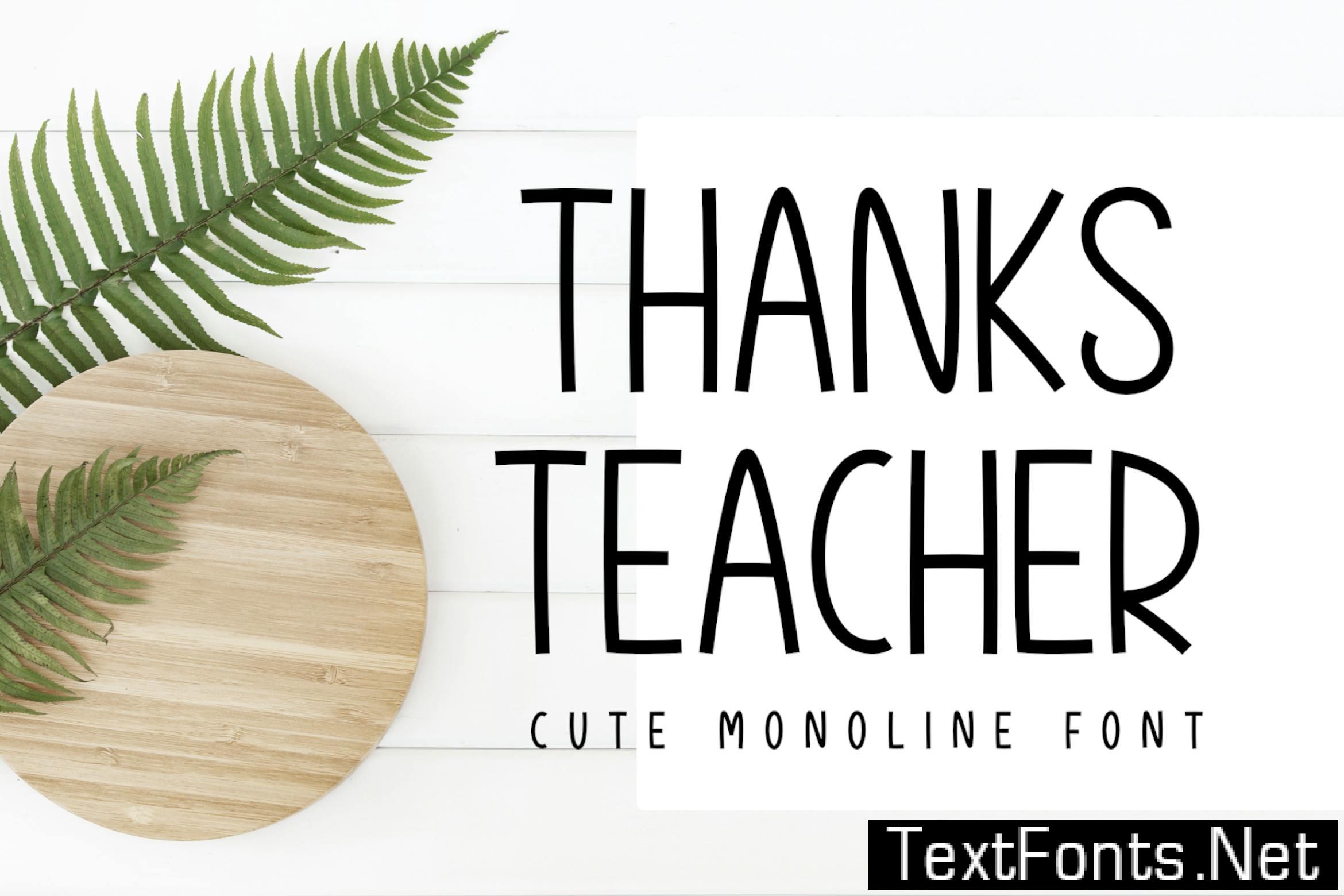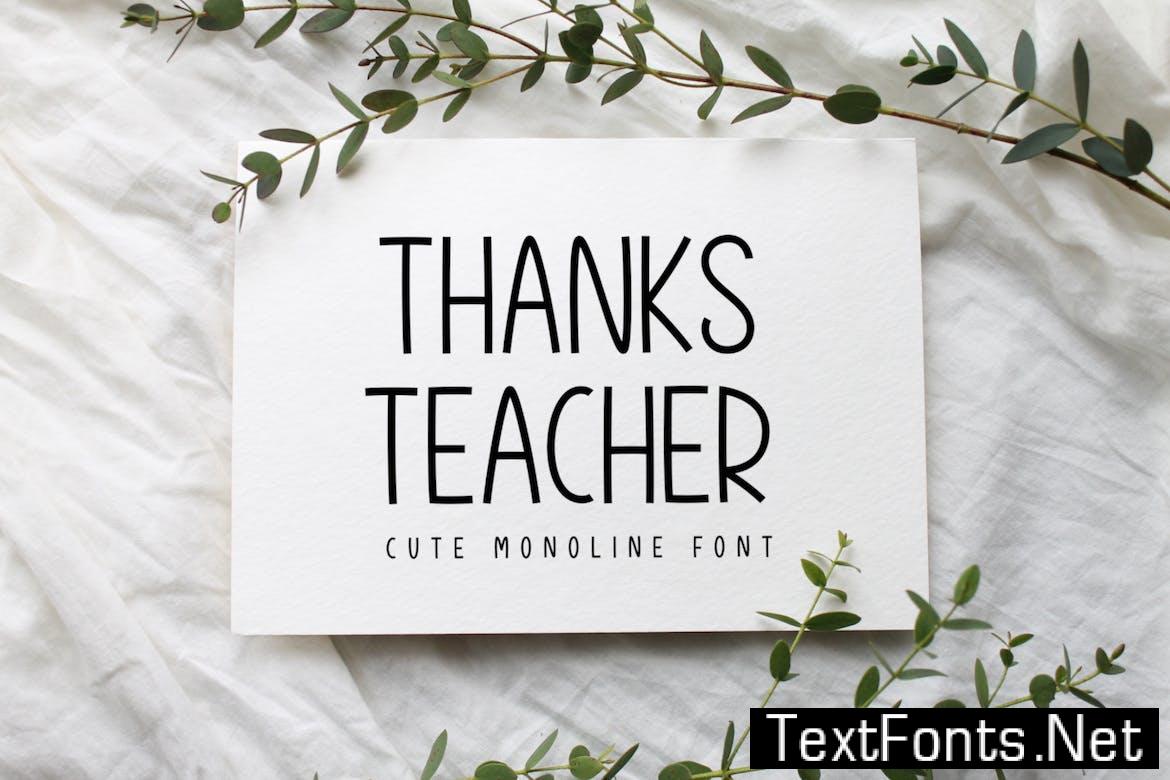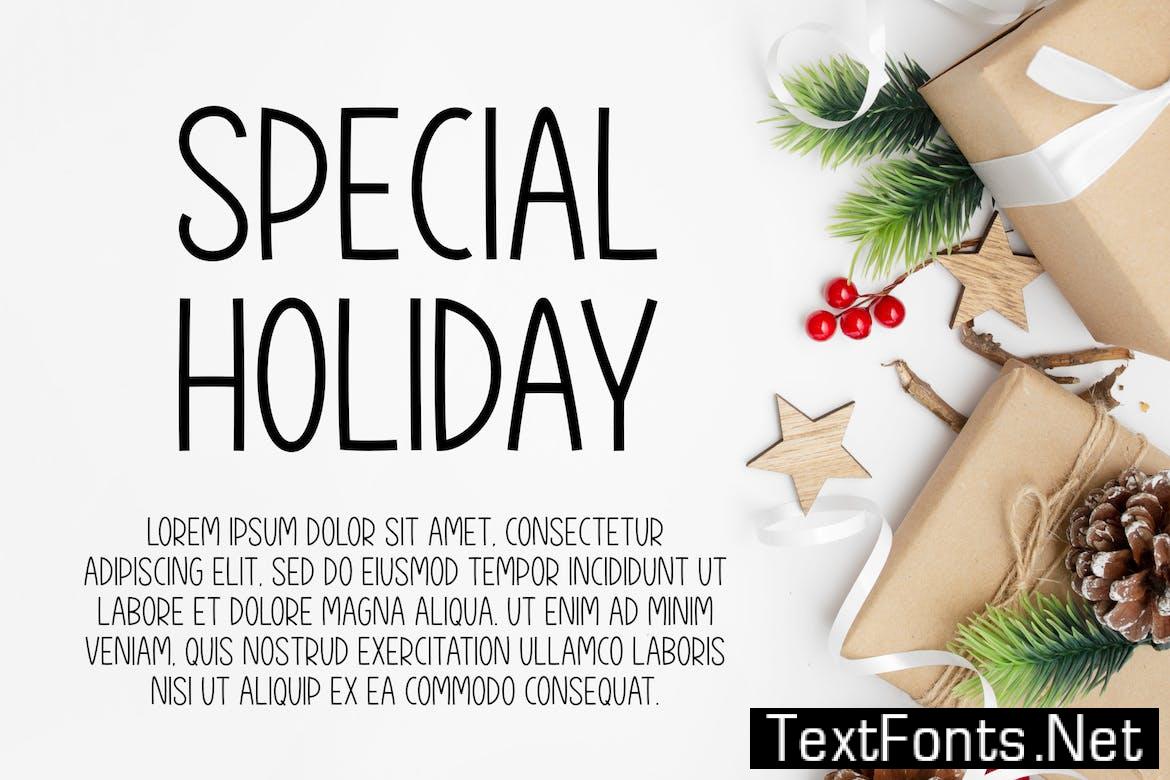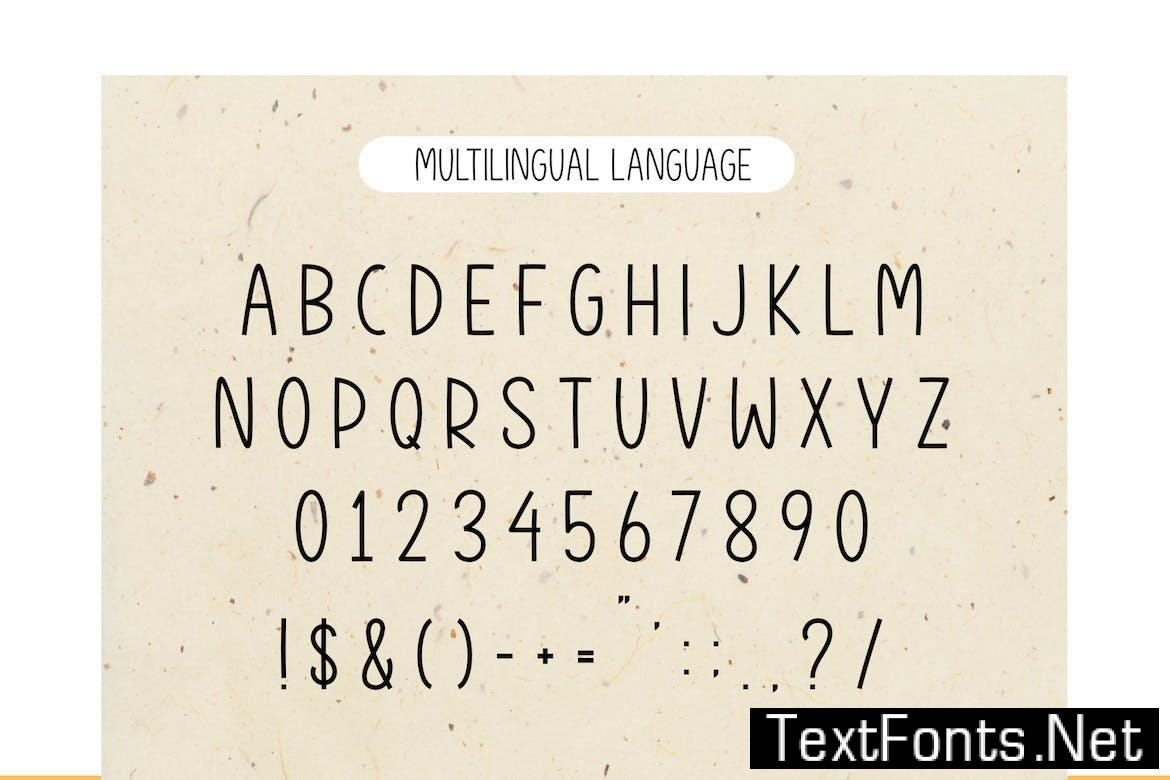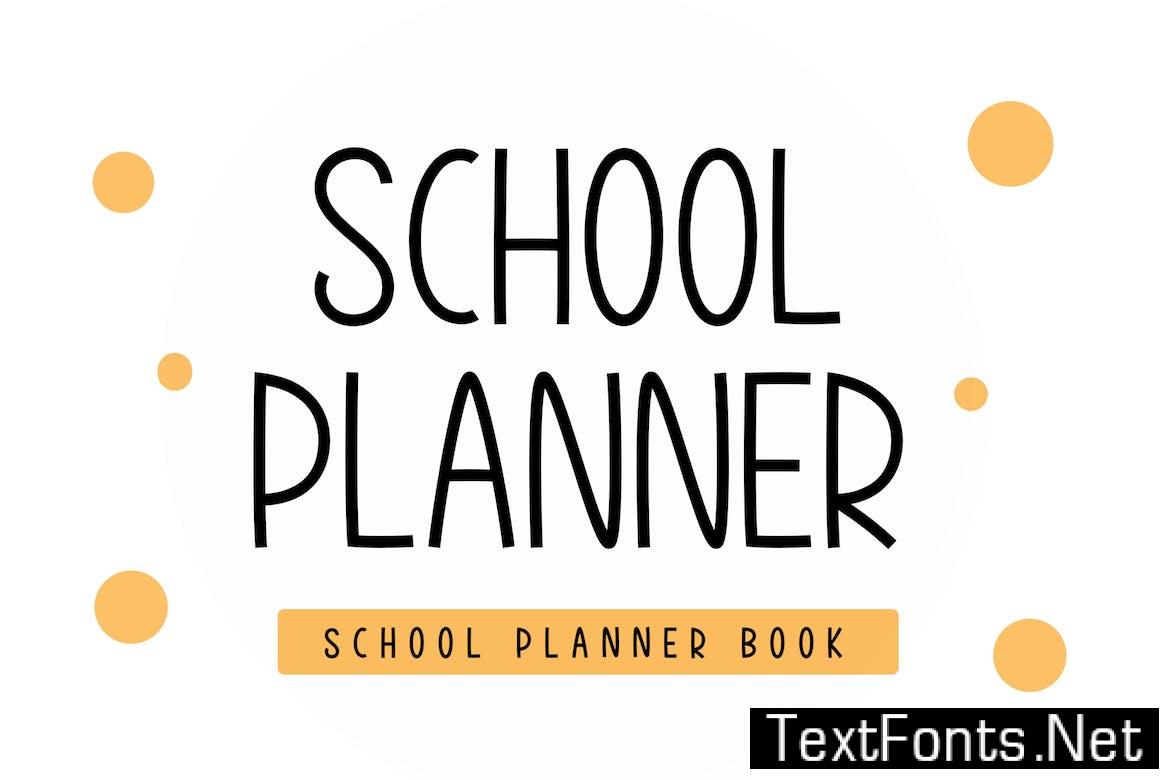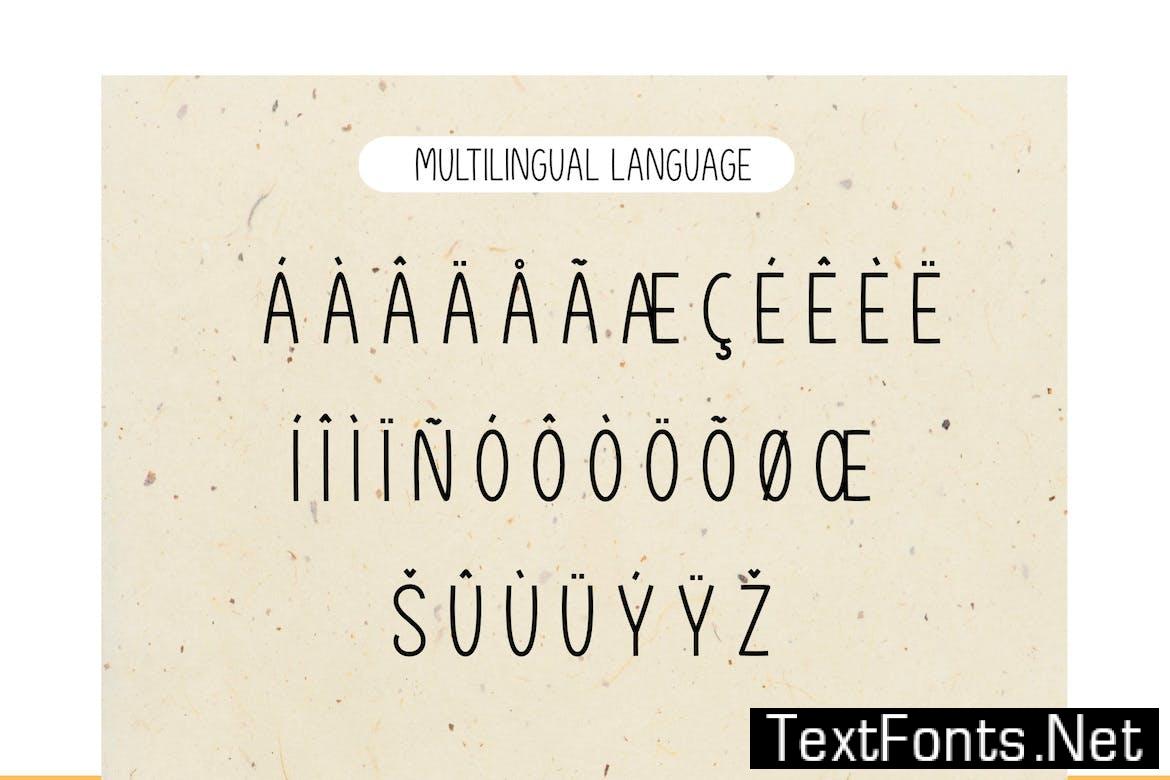
Thanks Teacher is a sophisticated monoline font featuring thin, tall characters that exude elegance and a natural appeal. Ideal for a wide range of design projects, Thanks Teacher adds a refined touch to posters, ID cards, logos, invitations, and more. Elevate your creations with the graceful and stylish presence of Thanks Teacher.